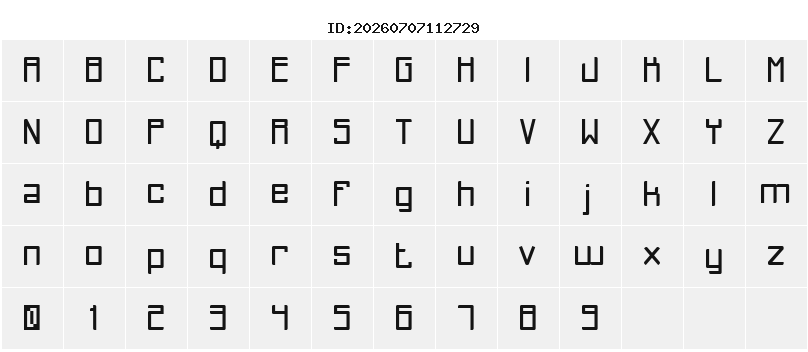
• Font Name: Del Recuerdo St
• Full Font Name: Del Recuerdo St
• Designer: www.southype.com
About Del Recuerdo St.ttf
Del Recuerdo St.ttf is a modern, elegant sans-serif font designed for ultimate readability and visual harmony. Perfect for branding, headlines, web design, and print materials.